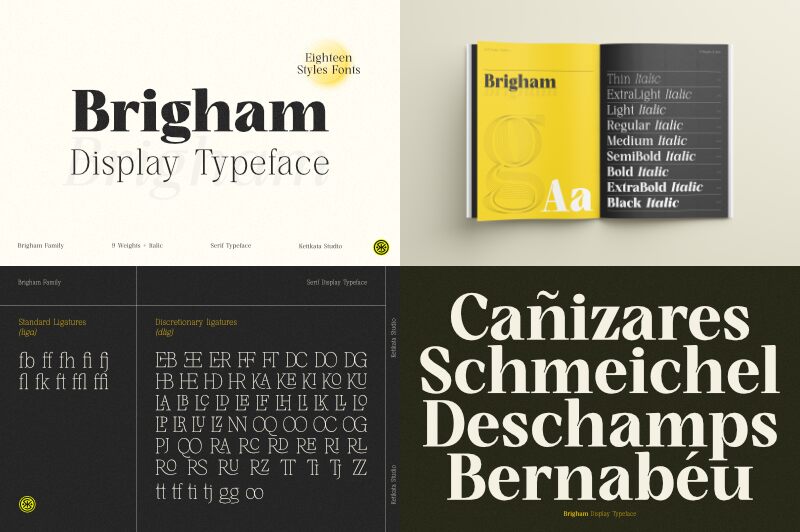
Brigham Display Black
Brigham Display Black font designed by Ketikata Studio is classic and timeless in its structure. This bold serif typeface takes comfort in sophistication, creating an imposing appearance that naturally draws attention. Strong borderlines made out of clean curves along with sharp edges arrange unique characters with a stylish presence all round.
The free serif font family received the inspiration for this style from vintage typography commonly produced around the start of the 20th century. Using it to showcase signages, film posters, packaging labels, book covers will give your layout immediate authenticity and authority alongside felt room improvements to aesthetics and legibility factor.